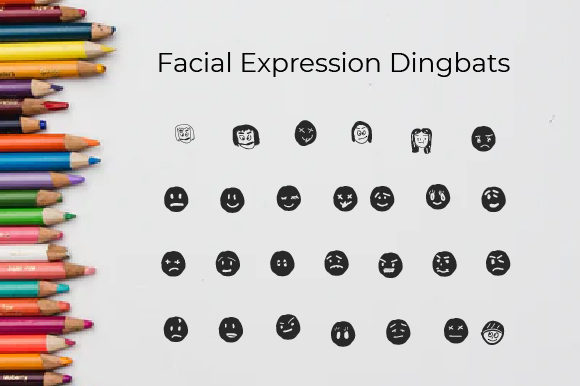
The Power of Facial Expressions in Design: A Font that Brings Joy
I’ll never forget the time I was working on a project for a children’s book, and I was struggling to find the right font to bring the characters to life. The client wanted something playful, yet professional, and I was determined to deliver. That’s when I stumbled upon the Facial Expression font, a cute and unique dingbats font that completely transformed my design. In this article, I’ll share my experience with this amazing font, and show you how to make the most of it in your own creative projects.
I’ve had the pleasure of working with Facial Expression for several weeks now, and I’m excited to share my honest review.
- ✨ Cute and playful: This font is perfect for designs that require a touch of whimsy and fun. The facial expressions are adorable and can add a lot of personality to your work.
- ✅ Unique and versatile: The font comes with a wide range of glyphs and stylistic alternates, making it easy to use in various design contexts, from children’s books to social media graphics.
- 💡 Inspires creativity: The Facial Expression font is a great tool for sparking creativity and inspiration. It’s amazing how a simple font can make you think outside the box and come up with fresh ideas.
Now, I’m not going to sugarcoat it – there are a few quirks to be aware of:
- 🤔 Limited use cases: While Facial Expression is perfect for playful designs, it might not be the best choice for more formal or professional projects, such as corporate branding or business reports.
- ⚠️ Glyph compatibility: Some glyphs might not work seamlessly with all platforms or software, so be sure to test them before finalizing your design.
The Designer Inspiration Behind Facial Expression
Facial Expression was designed with one goal in mind: to bring joy and playfulness to design. The font’s creator, a talented designer with a passion for typography, was inspired by the power of facial expressions to convey emotions and tell stories. With Facial Expression, you can add a touch of personality to your designs and bring your ideas to life.
| Is Facial Expression suitable for use in children’s books? | Absolutely! Facial Expression is perfect for children’s books, with its playful and whimsical design. |